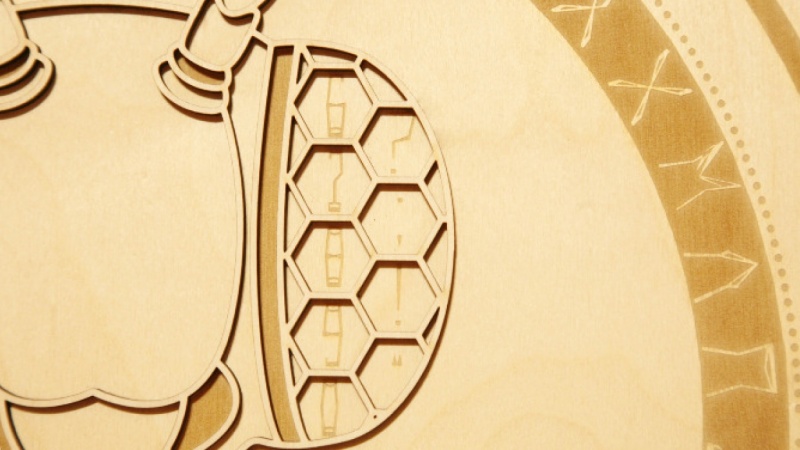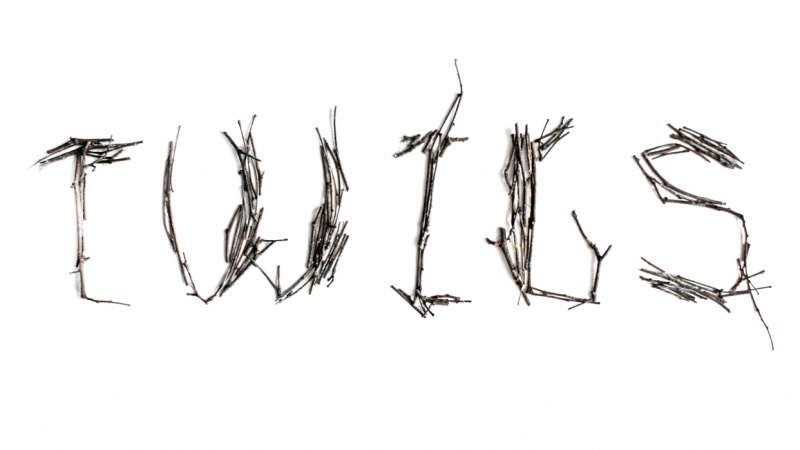
Type Design Basics: Design a Unique Decorative Grid-based Typeface
About This Class
Designing your own typeface might sound daunting, but it does not need to be! In this class designer Evgeniya Righini-Brand will teach you how to easily and quickly design your own decorative grid-based typeface which can be used to create cool typographic compositions for posters, t-shirt prints or logotypes.
This class is suitable for anyone interested in typography regardless of their skill level or experience. So if you are new to type design and just starting to learn about typography, this is a brilliant opportunity to boost your confidence and create something fast and without too many restrictions and practice your Adobe Illustrator skills along the way. And if you are a design pro you can use it as an opportunity to learn a new type design process and make some cool stuff.
Class structure:
1. Grid development. Choosing source images for the grid and building a grid to define your glyphs’ geometry.
2. Designing glyphs. Design development of glyphs based on your grid.
3. Finalising glyphs. Choosing from alternatives, adjusting proportions, cleaning up the paths, defining weights.
4. Customising typeface. Developing your typeface further by adding extra graphic features.
5. Typographic compositions. Tips and tricks for creating better typographic compositions.
Note: Creating a working typeface file is a different much more advanced task and is not covered in this class.